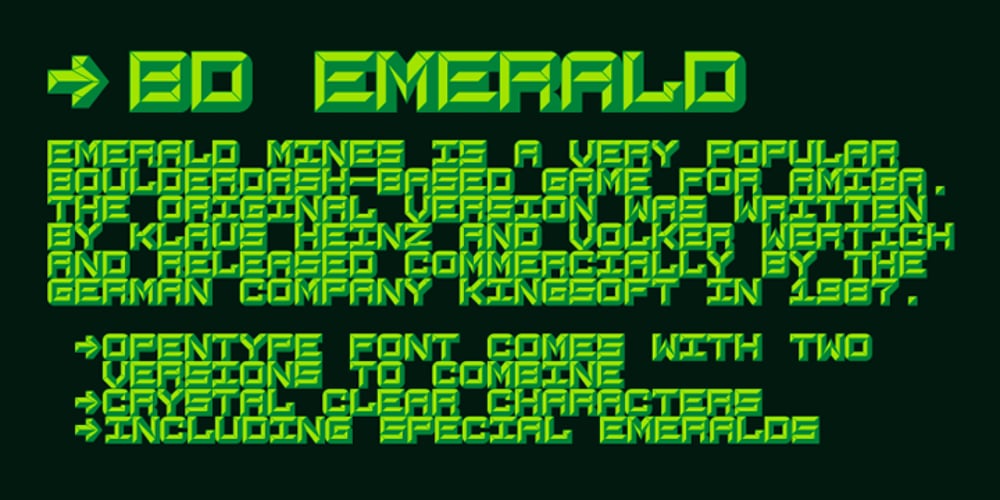
BD Emerald Font Family was designed by published by Typedifferent. BD Emerald contains 2 styles and family package options. BD Emerald is based on a pixel font used in an old Commodore Amiga game called “Emerald Mine”. By using both versions 1 and 2 you can add a second dimension.